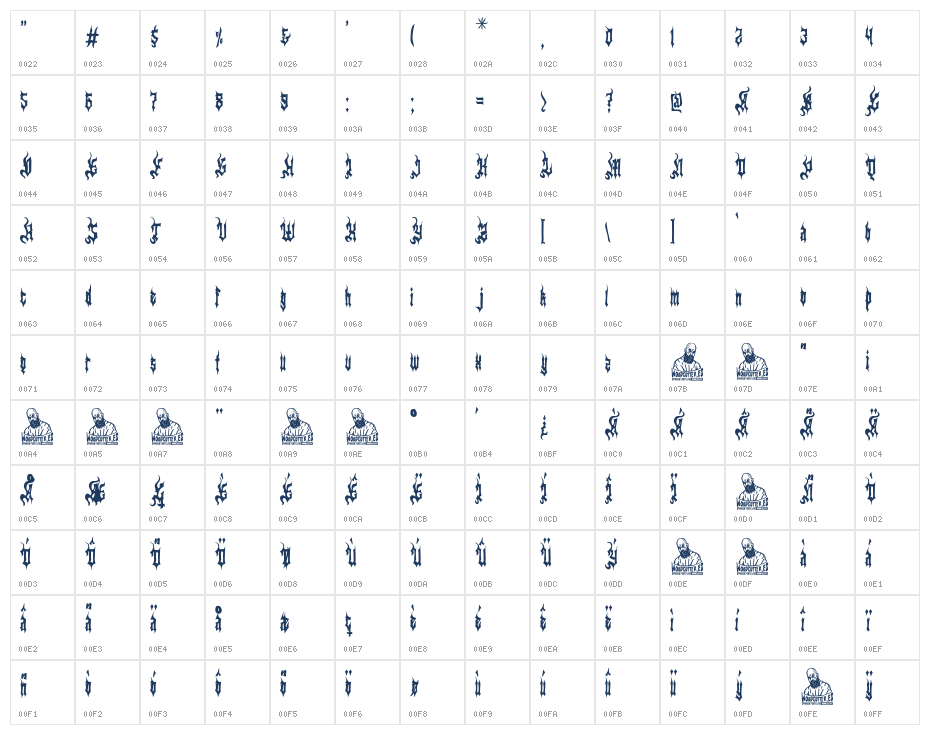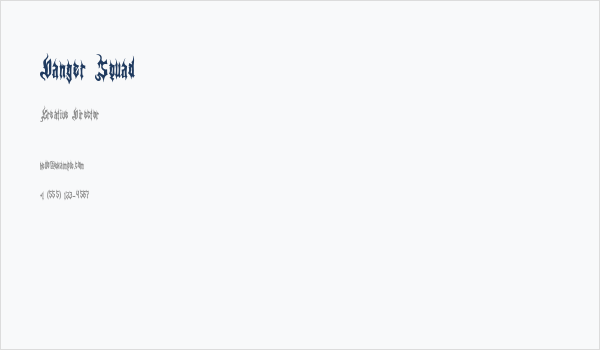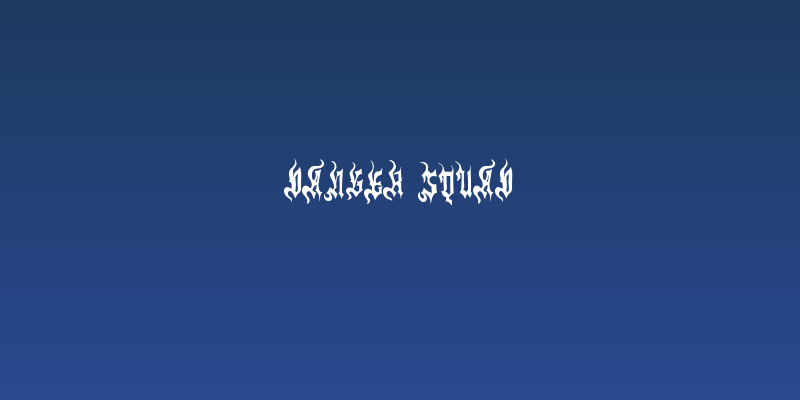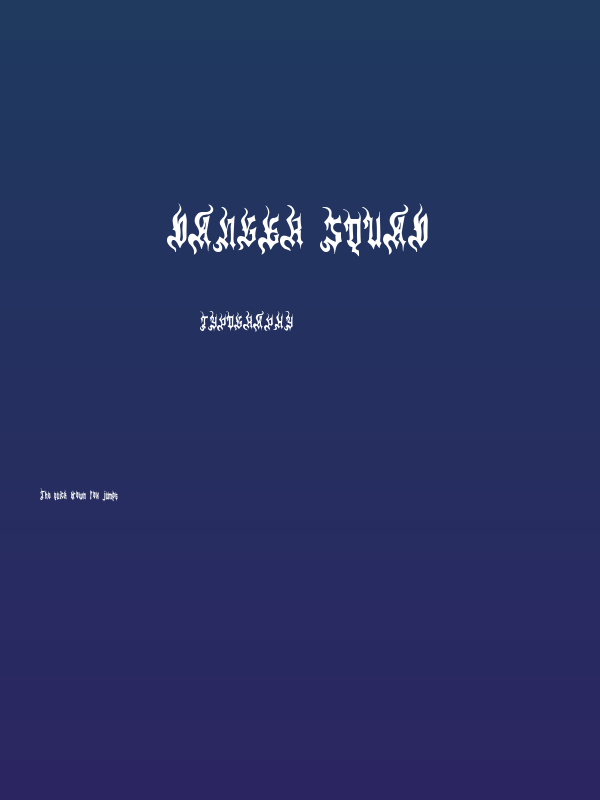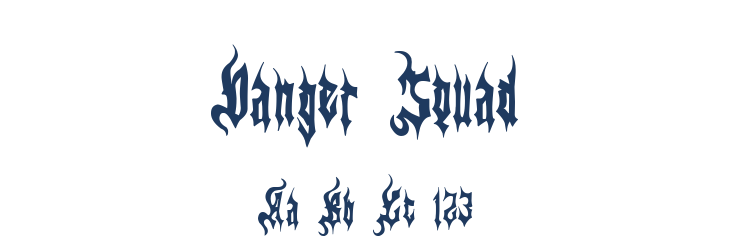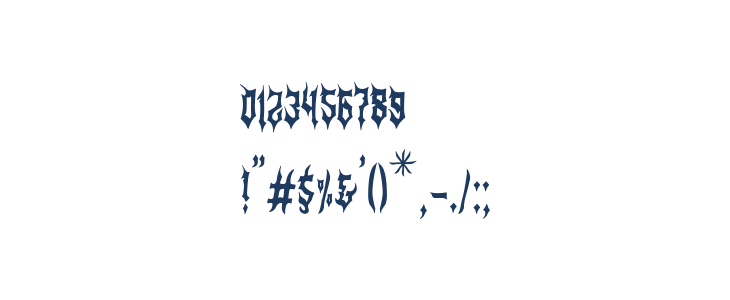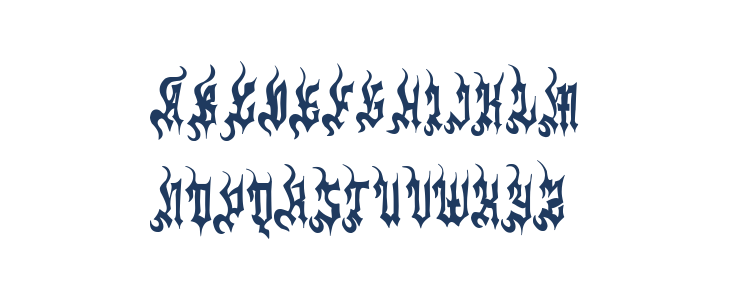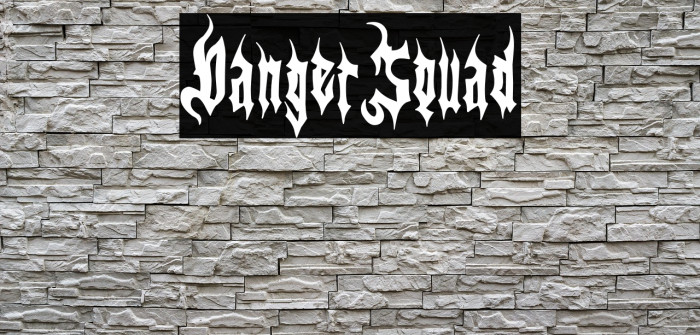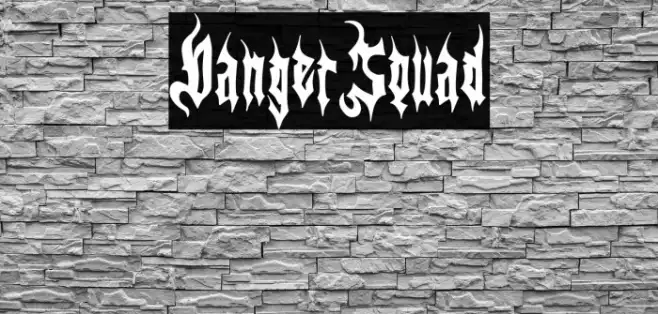
Danger Squad Font
Danger Squad Description
A decorative, gothic-style font with intricate, flame-like details and sharp edges, resembling medieval or tattoo-inspired lettering.
| Overall Style | Gothic, Medieval, Tattoo-inspired |
| Use Case | Logos, Tattoos, Posters, Themed Titles |